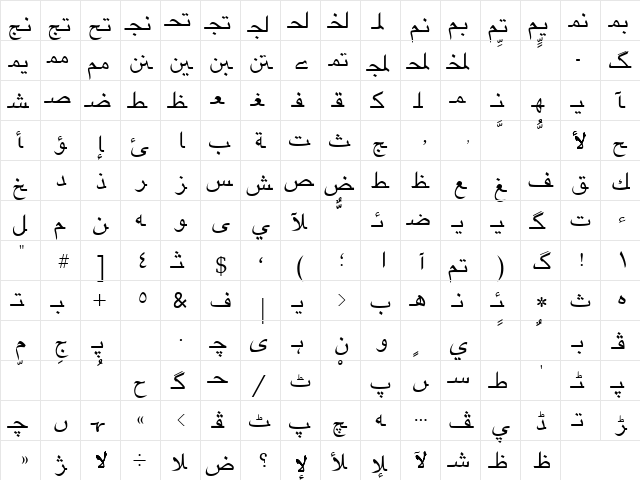
Geezah Regular
Design Context for Geezah Typeface
Geezah takes a measured approach to typography — its balanced proportions and neutral character make it a reliable workhorse for both digital and print work.
Pro Tip: Use Geezah in both headline and body roles to test its range before committing to a single application.